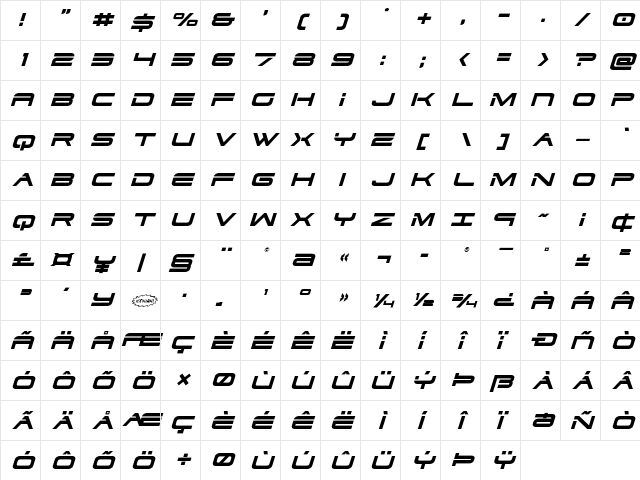
Dodger Title Italic Italic
Design Context for Dodger Title Italic Typeface
Dodger Title Italic offers clean, dependable letterforms without strong stylistic allegiance, making it a practical choice for designers who need flexibility. Its italic angle brings a sense of urgency and motion to the letterforms.